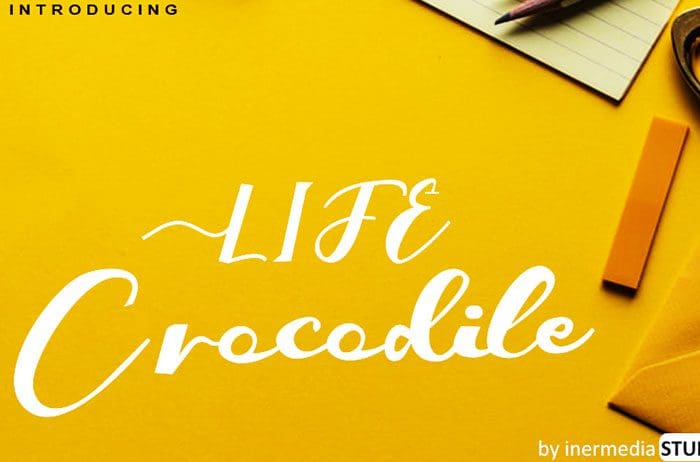
Crocodile Calligraphy Font
Crocodile calligraphy font carefully created with a touch of elegance. This font is the perfect font for making outstanding designs. Use this gorgeous and unique calligraphy font to bring any DIY project to life! Designed this font by Inermedia Studio. You can also search more freeĀ Calligraphy Fonts.